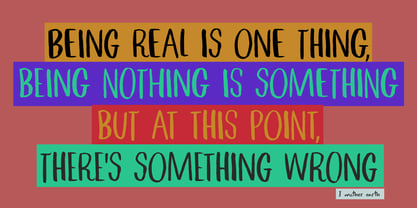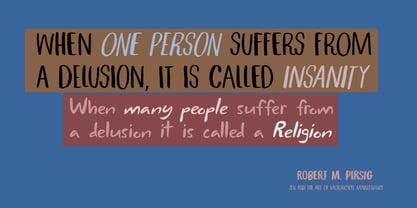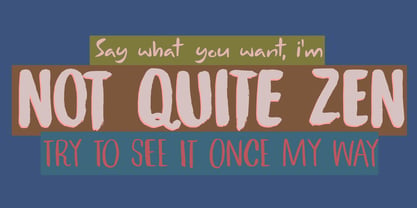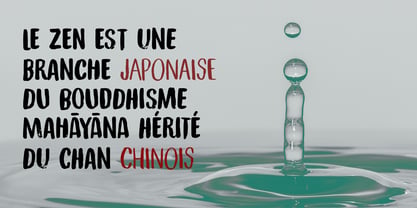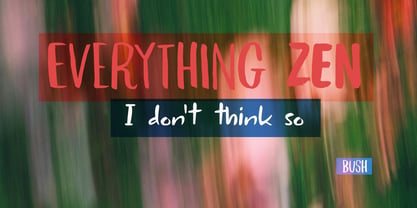
Not Quite Zen Pro
La familia tipográfica Not Quite Zen Pro fue diseñada por David Kerkhoff y publicada por Hanoded. Not Quite Zen Pro contiene 6 estilos y opciones de paquete familiar. Más información sobre esta familia
Not Quite Zen font family was named after two of my favourite ’90’s rock songs: Everything Zen by British band Bush and Not Quite Sonic by Canadian rockers I Mother Earth. My daughter started drums lessons a while ago and the teacher asked her to come up with a few of her favourite songs to practise with. Since she likes poppy songs, that use drum computers, I made a list of ‘old’ nineties songs that she could use instead. Both Bush and I Mother Earth feature heavily on that list!
Enough about my choice of music - Not Quite Zen is a 3 font family (with Italics); two brush fonts and a script. They go together really well, so let your creativity run wild!
Hanoded is run by Dutchman David Kerkhoff. His fonts are a mishmash of styles, as he just creates whatever pops into his head. You will find a lot of brush fonts in his collection, as his favourite tools are brushes and Chinese ink, with cartoon style fonts and script fonts complementing his repertoire. Aside from making fonts, David occasionally guides tours in far-flung places, renovates his '30's house and tries reasoning with his wife and (teenage) kids. Not an easy task!